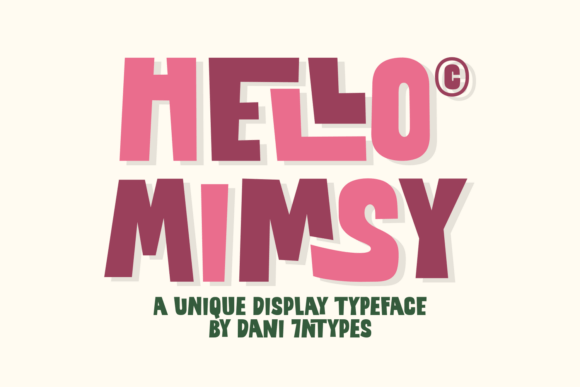
Meet Your New Design BFF: Hello Mimsy Font
Have you ever stared at a blank page, trying to come up with the perfect design to capture the essence of your project? The words “fun,” “eye-catching,” and “vibrant” are swirling in your head, but nothing seems to click. You need a font that can bring your vision to life, and that’s where Hello Mimsy Font comes in.
This charming display font is designed to add a playful twist to your designs, making them stand out from the crowd. With its bold shapes, quirky curves, and cheerful personality, Hello Mimsy Font is the perfect companion for any project that needs a dash of fun and whimsy. Whether you’re creating posters, product packaging, or social media graphics, this font will bring a friendly and memorable vibe to your text.
For designers, Hello Mimsy Font is a valuable addition to any toolkit, offering a unique way to express your creativity and make your designs truly unforgettable.
Hello Mimsy Font Key Features
- Font Family: Hello Mimsy is a sans-serif font family designed for digital use.
- Font Size: Offers a range of font sizes, from 8pt to 72pt, suitable for various digital applications.
- Unique Characteristics: Features a friendly and approachable tone, with subtle rounded edges and open letterforms.
Hello Mimsy Font Review
I recently had the chance to work with Hello Mimsy Font, and I’m excited to share my honest review. This font has some amazing qualities that make it a great addition to any design project.
- Unique Character: Hello Mimsy Font has a distinct, whimsical feel that’s perfect for adding personality to your designs.
- Legibility: Despite its playful appearance, this font is surprisingly easy to read, making it suitable for body text and headings alike.
- Customization Options: Hello Mimsy Font comes with a range of styles and weights, giving you plenty of flexibility to experiment with different looks.
- Limited Language Support: Unfortunately, Hello Mimsy Font may not be the best choice for projects requiring extensive language support, as it’s primarily designed for Latin-based scripts.
- Not Ideal for Small Text: While Hello Mimsy Font is legible, it may become difficult to read when used at very small font sizes.
Overall, I think Hello Mimsy Font is a great choice for designers looking to add a touch of whimsy to their projects. Its unique character and customization options make it a versatile tool, but be aware of its limitations in terms of language support and small text readability.
Getting the Most Out of Hello Mimsy Font